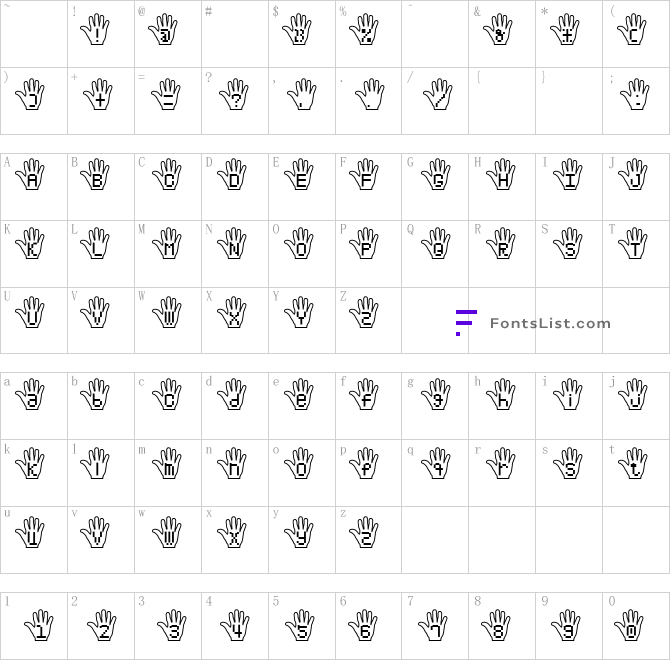
- Font Name:abc,otete
abc-otete.ttf is a very beautiful artistic font, abc-otete.ttf is widely used in the design and printing of various books and pictures,abc-otete.ttf has a strong visual impact,abc-otete.ttf is a commonly used font in newspapers, magazines and books, and is used in posters, e-commerce Poster design, store design, logo design, font design and other fields.abc-otete.